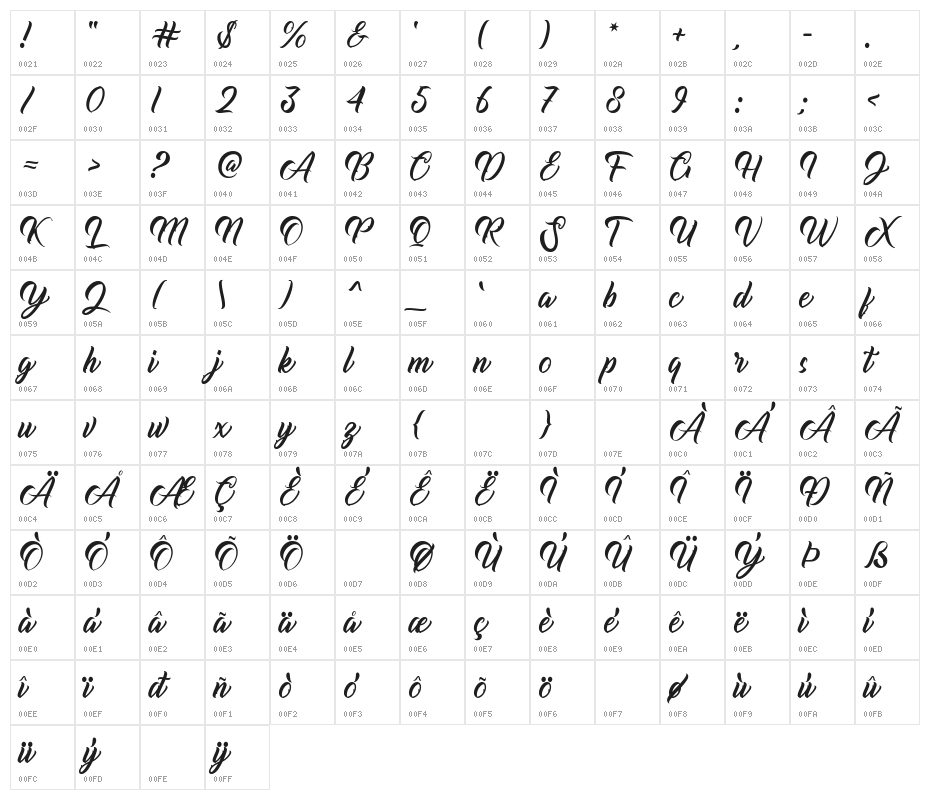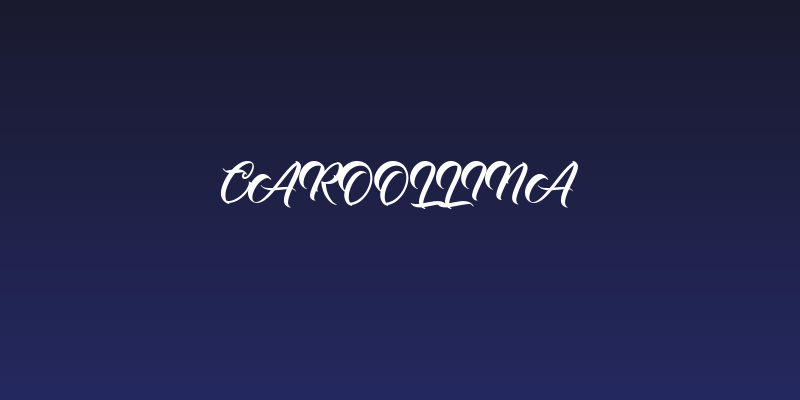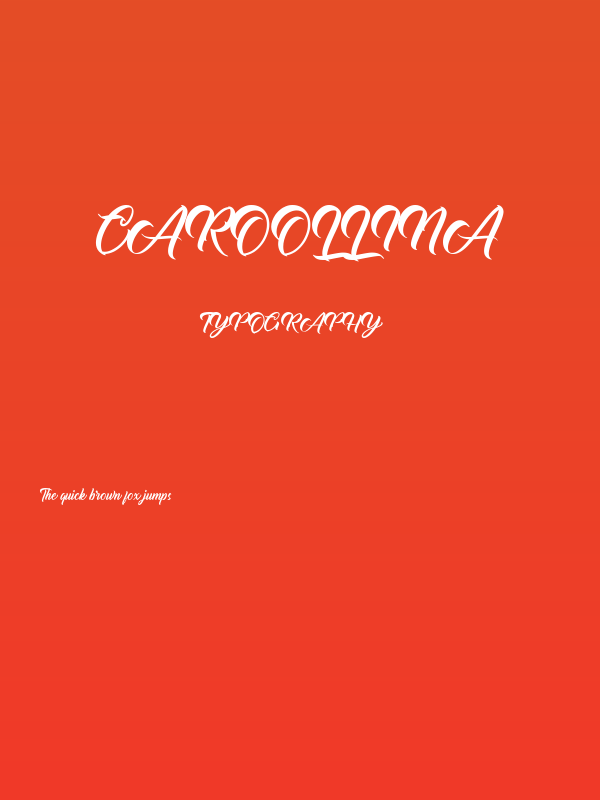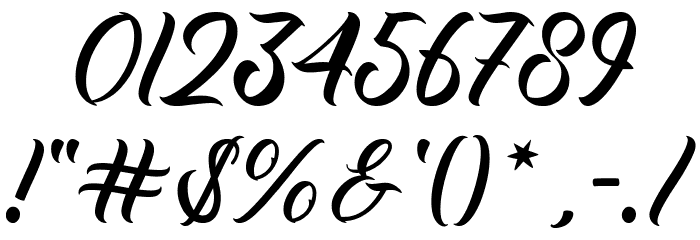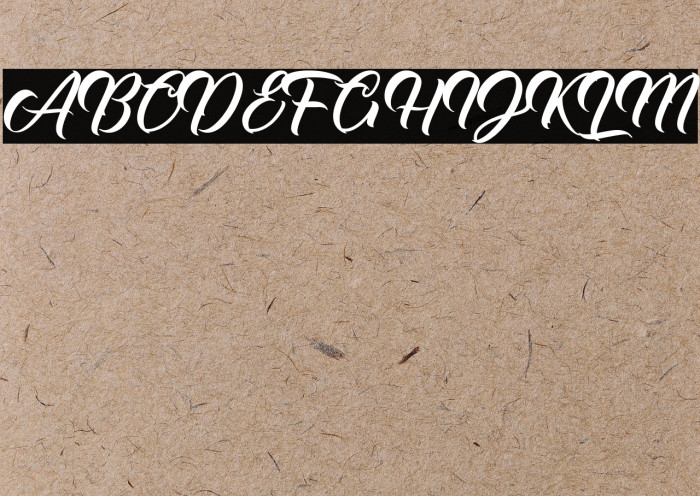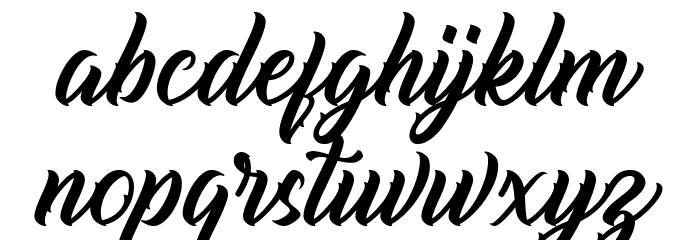
Caroollina Font
Caroollina Description
This font features a bold and expressive script style, characterized by its fluid, cursive strokes and elegant flourishes. The letters are interconnected, creating a sense of continuity and flow. The uppercase letters are ornate, with exaggerated loops and swashes, while the lowercase letters maintain a more consistent rhythm. The numbers and special characters are designed to match the overall aesthetic, ensuring a cohesive look. This font exudes a sense of sophistication and creativity, making it ideal for projects that require a touch of elegance and personality.
| Proposed Projects | Ideal for wedding invitations, branding, logos, and elegant packaging designs. |